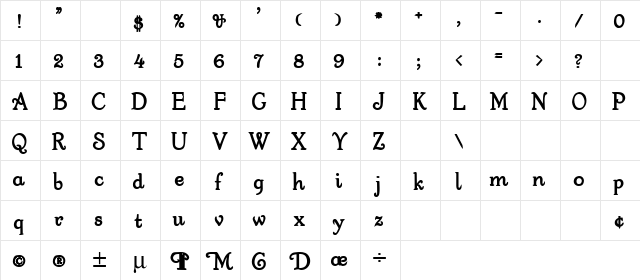
Pavarotti Regular Font Preview
Pavarotti Regular
Design Context for Pavarotti Typeface
Pavarotti takes a measured approach to typography — its balanced proportions and neutral character make it a reliable workhorse for both digital and print work.